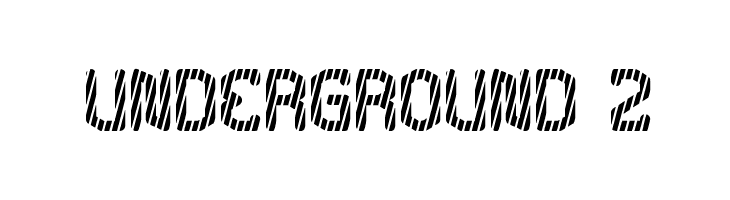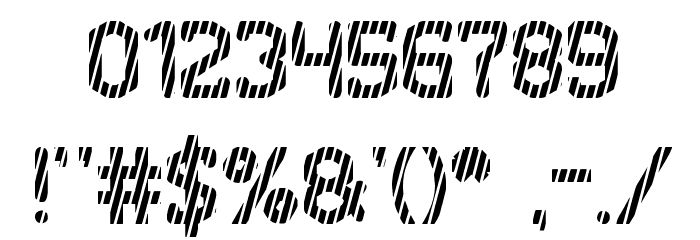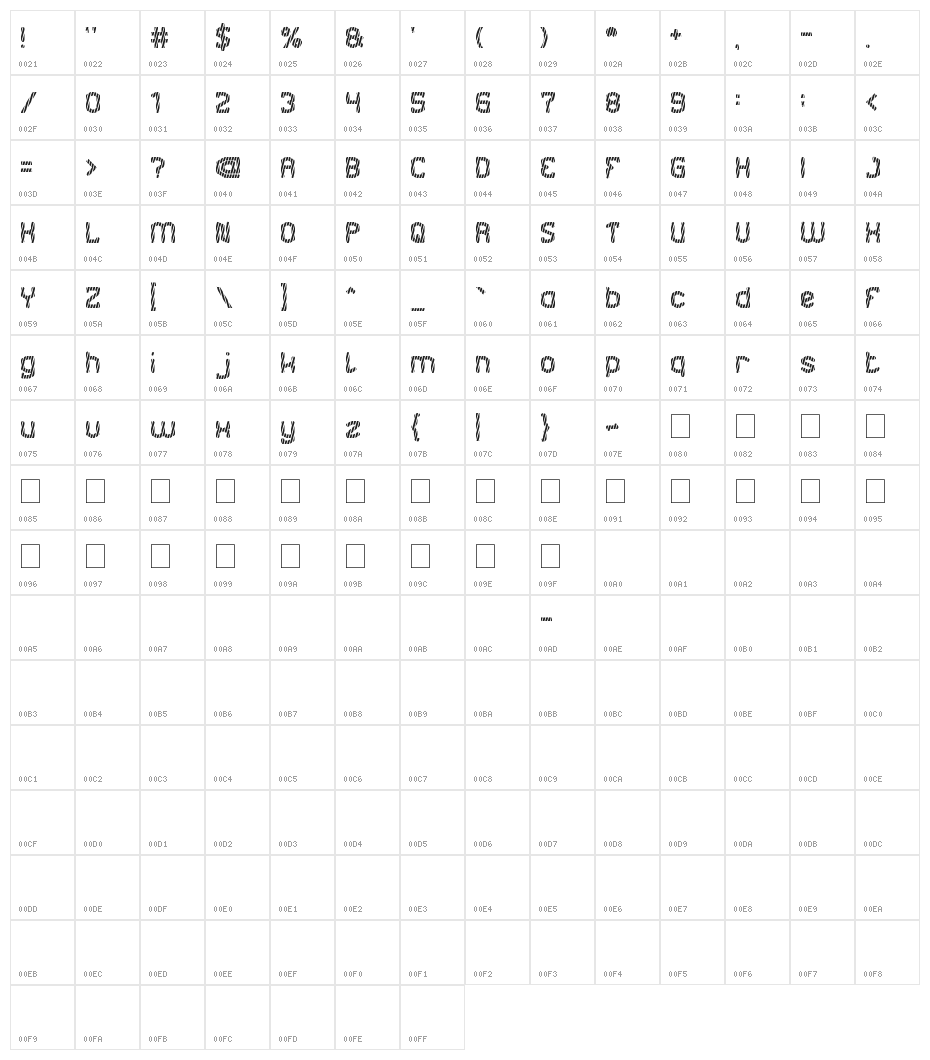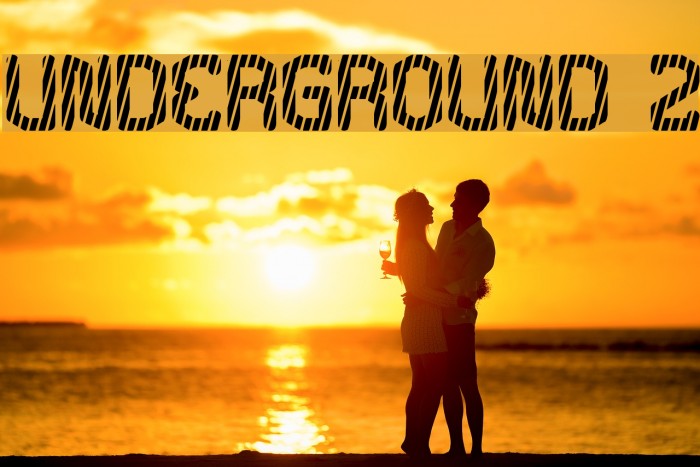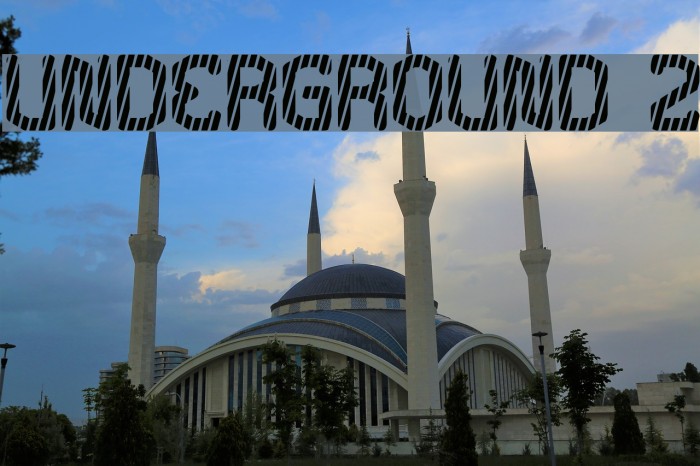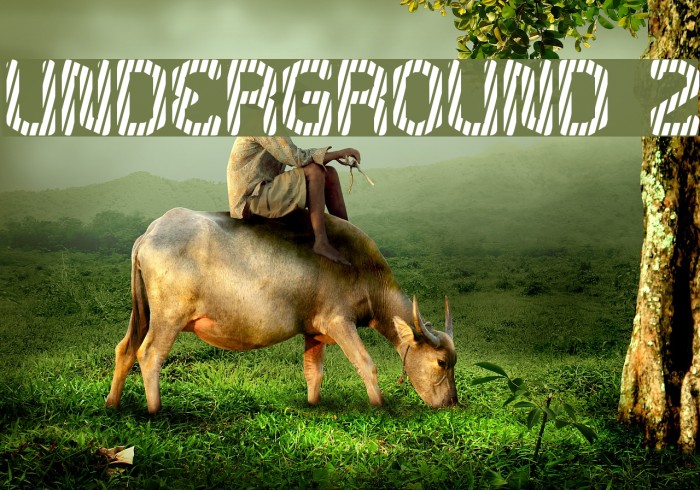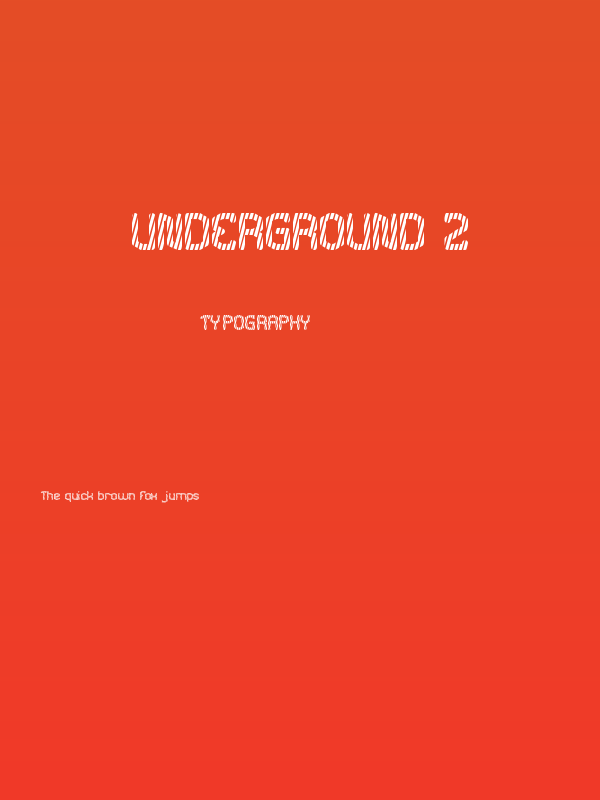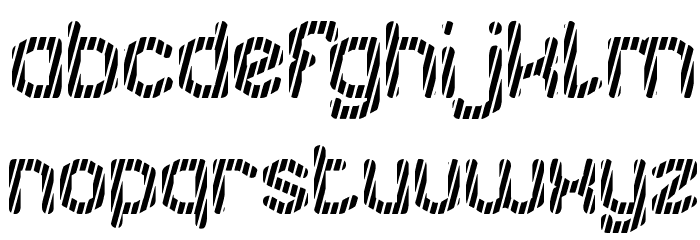
UNDERGROUND 2 Font
UNDERGROUND 2 Description
This font features a unique, striped pattern that gives it a dynamic and modern appearance. The characters are bold and slightly slanted, creating a sense of movement and energy. The uppercase and lowercase letters maintain a consistent style, with rounded edges and a uniform thickness. The numbers and special characters follow the same design, ensuring a cohesive look across all elements. This font is distinctive and eye-catching, making it suitable for projects that require a bold statement.
| Proposed Projects | Ideal for branding, posters, and advertisements that need a striking and modern look. |